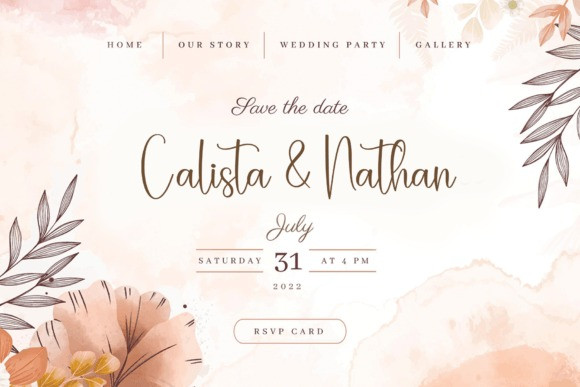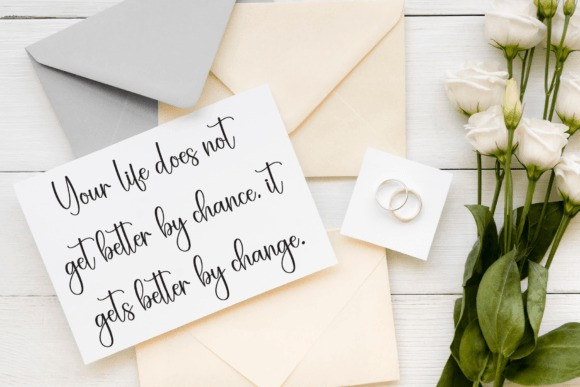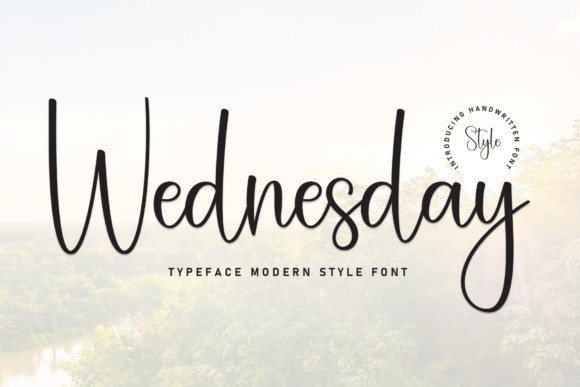
Wednesday Style Script Font
Wednesday Style Script Font is an adorable handwritten font. No matter the topic, this font will be an incredible asset to your fonts’ library, as it has the potential to elevate any creation.